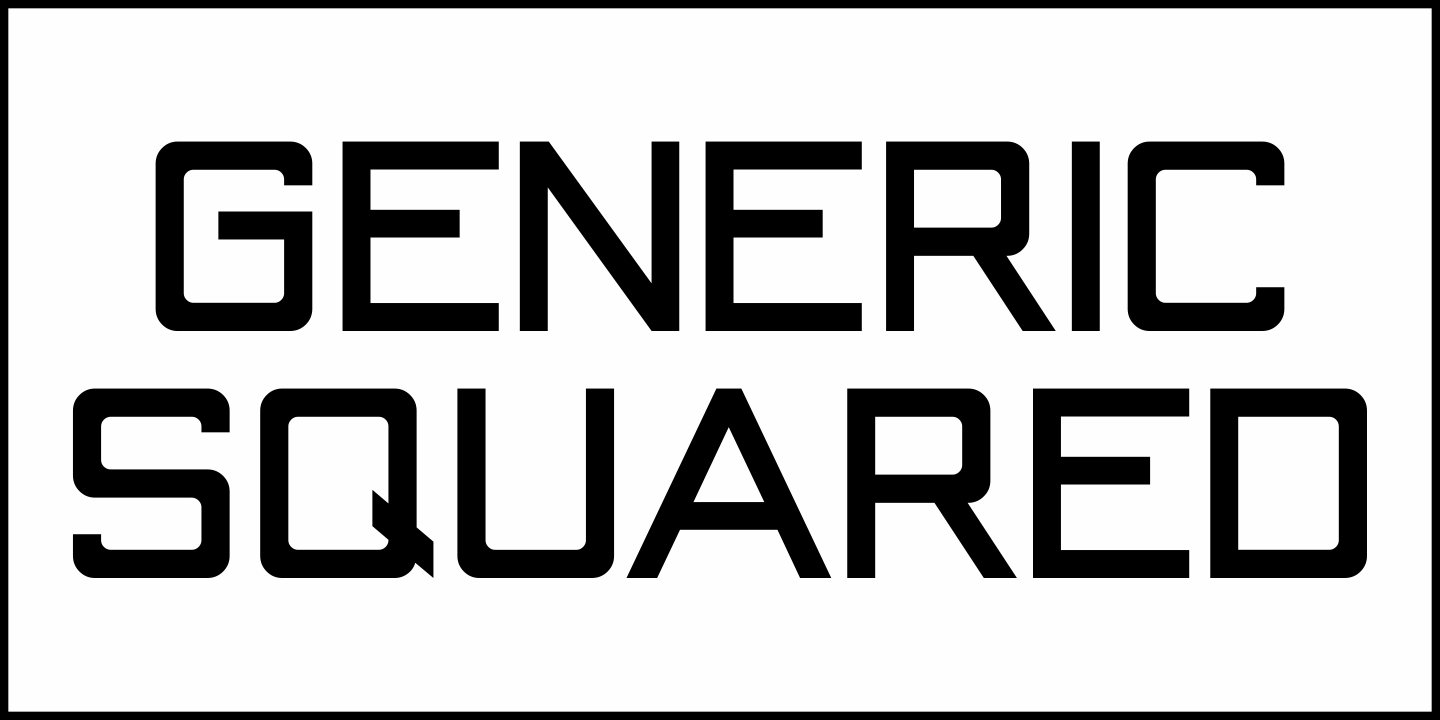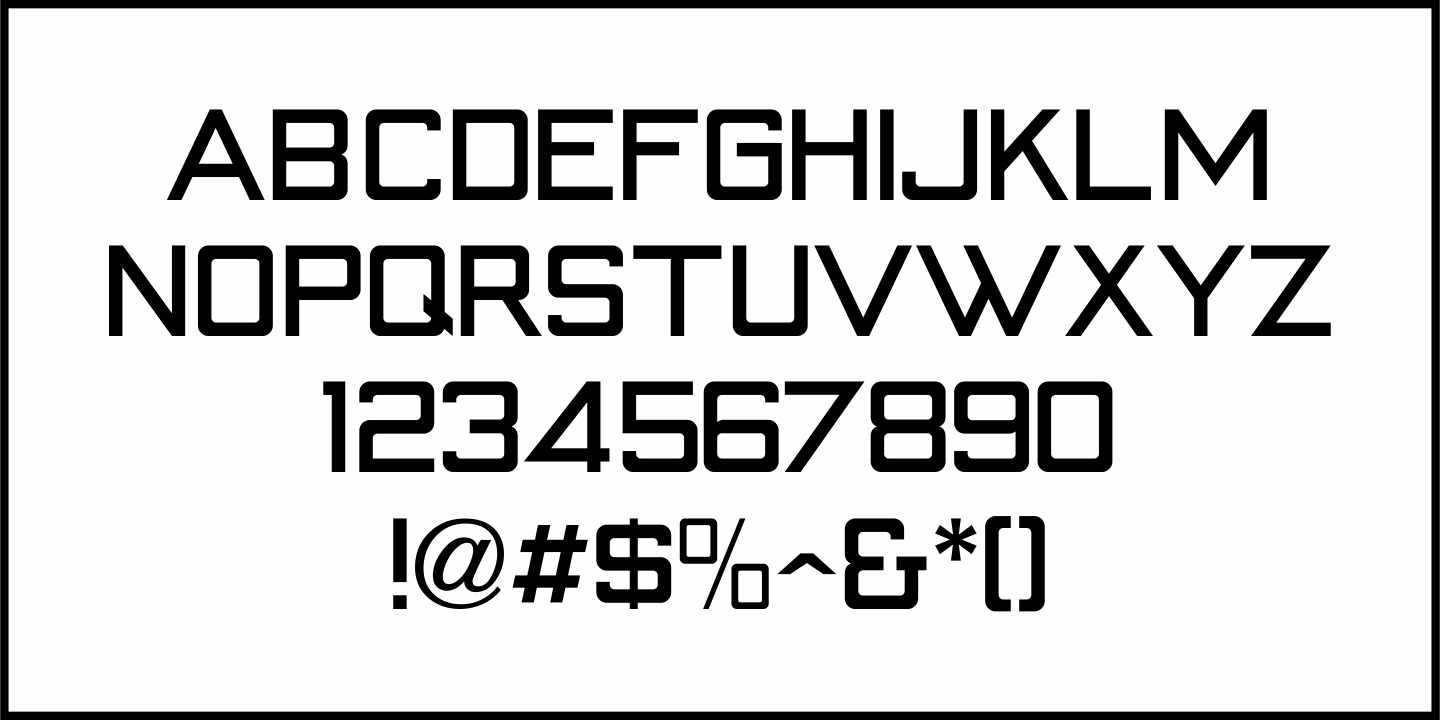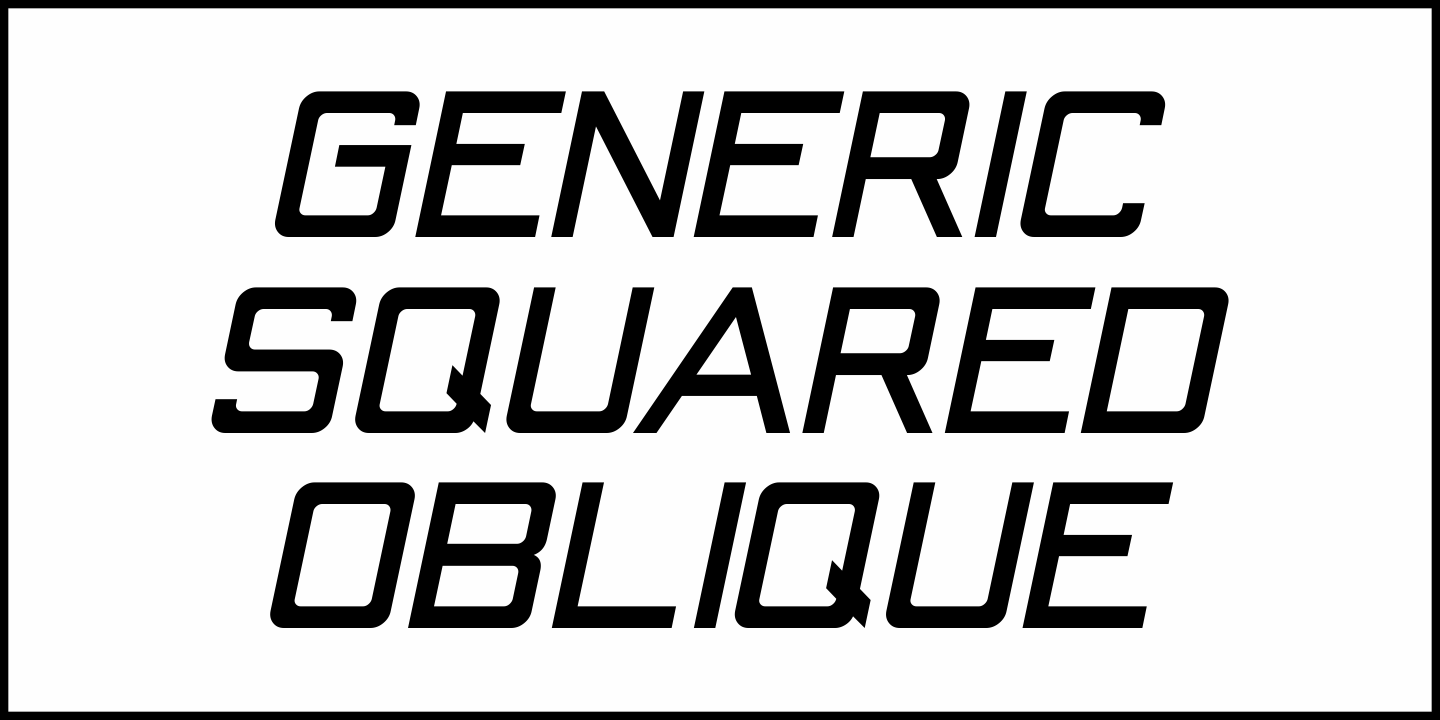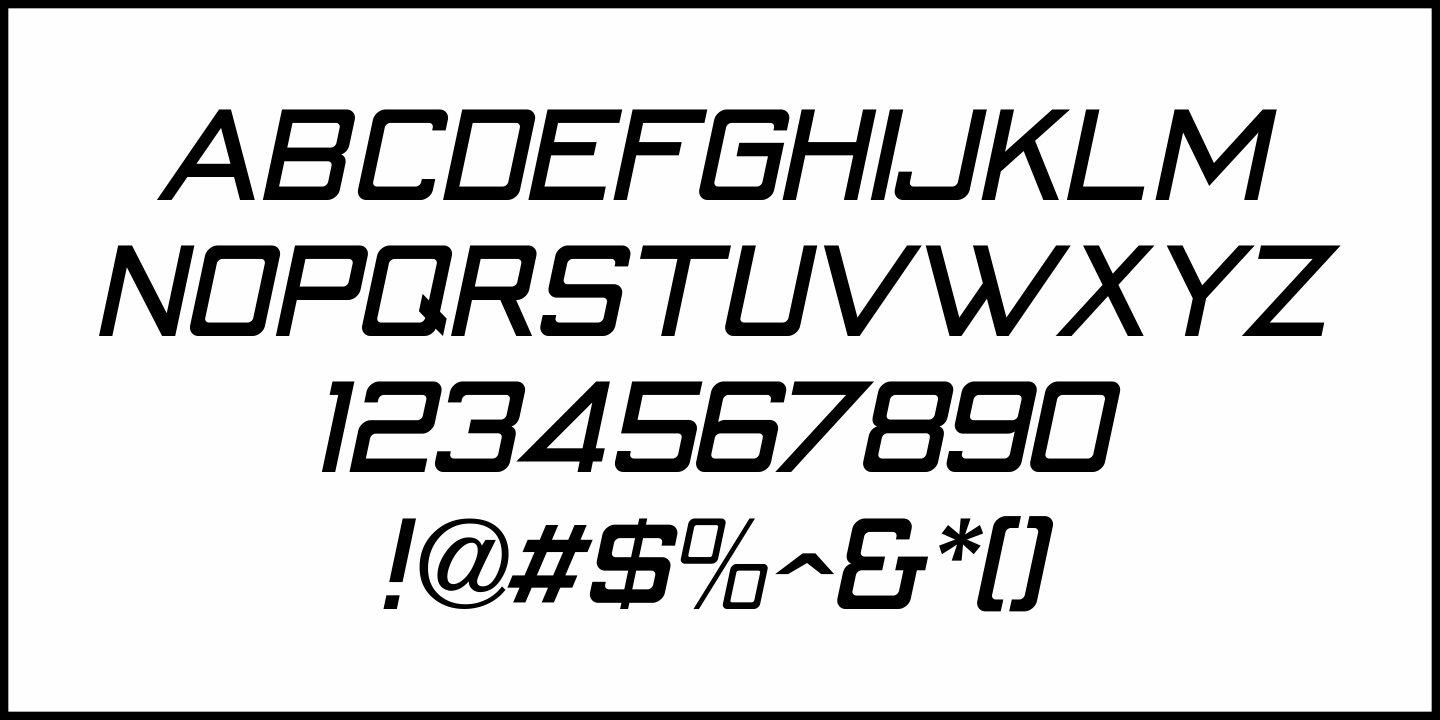
Generic Squared
The April 3, 1937 issue of Boxoffice Magazine had its page headers hand lettered in a squared san serif type design with rounded corners.
Reminiscent of early 1900s sign painter alphabets, the simplicity of the type design does not detract from its legibility and functionality.
Digitally redrawn as Generic Squared JNL, it is available in both regular and oblique versions.
Generic Squared JNL Regular by Jeff Levine Fonts